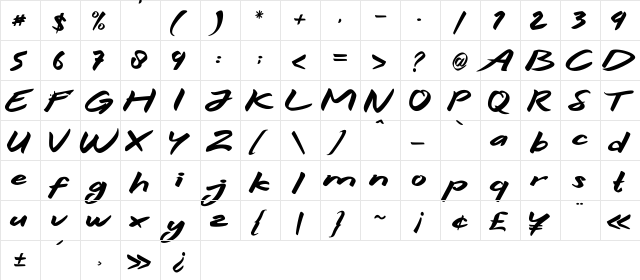
Hitam Regular
| Foundry | Khurasan |
| Designer | Khurasan |
Design Context for Hitam Typeface
Hitam is a composed and adaptable typeface that performs quietly and consistently across a wide range of design contexts.